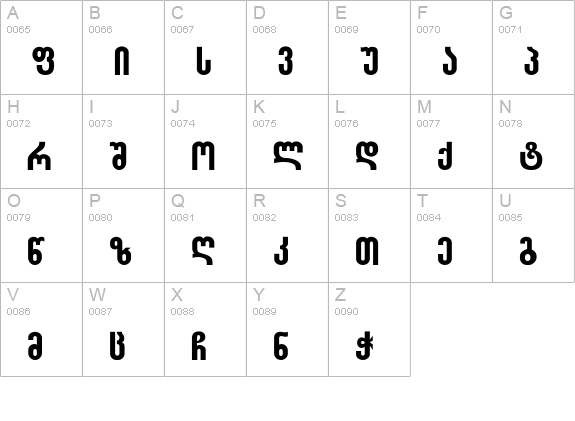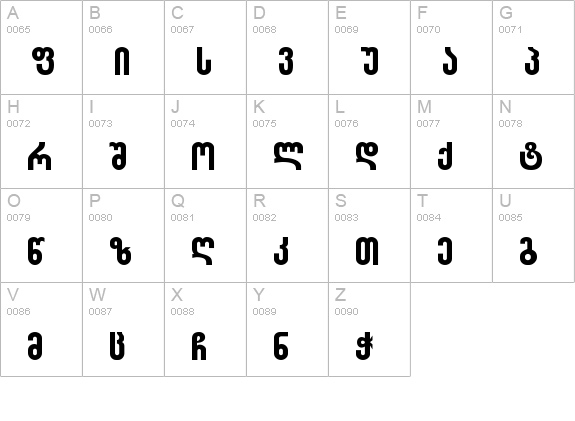
Sakatrvelo-ITV font is a stunning display typeface that exudes elegance and sophistication. With its sleek lines and unique letterforms, this font is sure to capture attention and make a lasting impression. Whether used for headlines, logos, or any design project, Sakatrvelo-ITV font adds a touch of class and style. What sets Sakatrvelo-ITV font apart is not only its exquisite design but also its availability. This font is freely available to download at FontsMarket.com. Yes, you read that right - it's completely free! Now you can elevate your designs without any cost or hassle. With Sakatrvelo-ITV font, you'll have access to a wide range of characters and glyphs, allowing you to unleash your creativity and bring your visions to life. Whether you're designing for print or digital, this font's versatility knows no bounds. Not only is Sakatrvelo-ITV font visually appealing, but it also offers exceptional legibility and readability. Each character is meticulously crafted, ensuring that your message comes across loud and clear. Whether you're designing for a poster, website, or branding materials, this font will ensure that your text is easily understood and effortlessly stylish. Don't miss out on the opportunity to enhance your design projects with Sakatrvelo-ITV font. With its stunning design, versatility, and the fact that it's freely available to download at FontsMarket.com, this font is a must-have for any designer or creative professional. Download it today and experience the beauty and functionality of Sakatrvelo-ITV font for yourself.